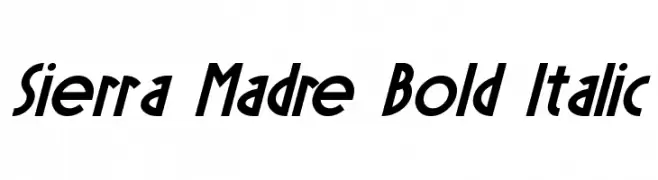
A bold, italicized font with a futuristic and dynamic style.
A bold, italicized font with a dynamic and energetic style.
A bold, italic font with a modern, dynamic style and clean lines.
A bold, geometric font with art deco influences, ideal for striking designs.